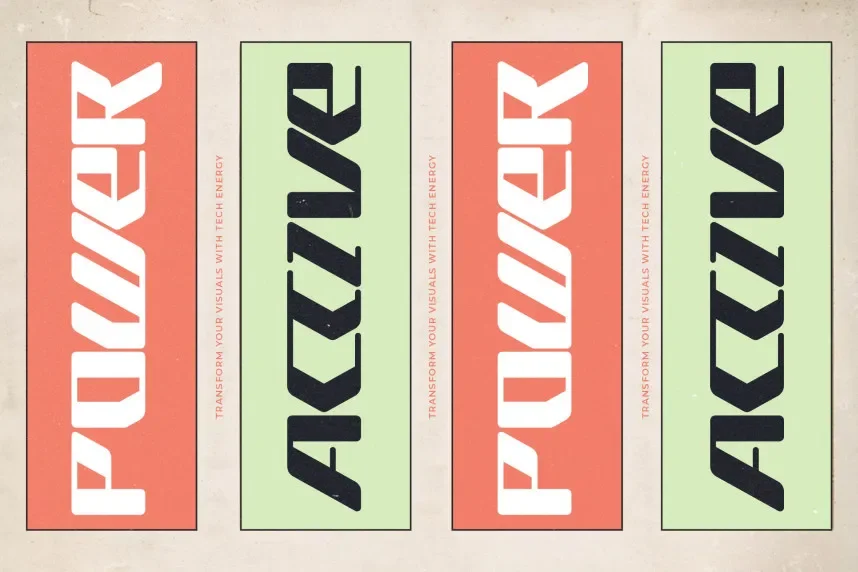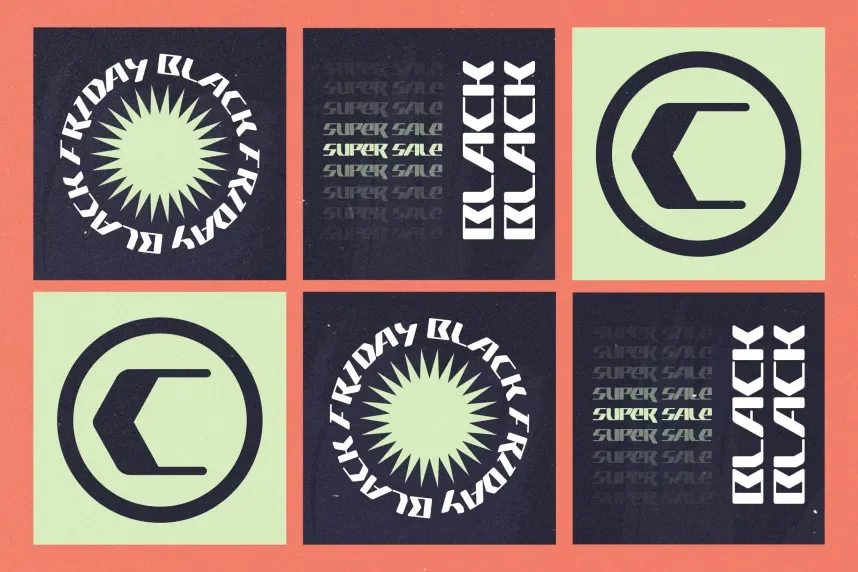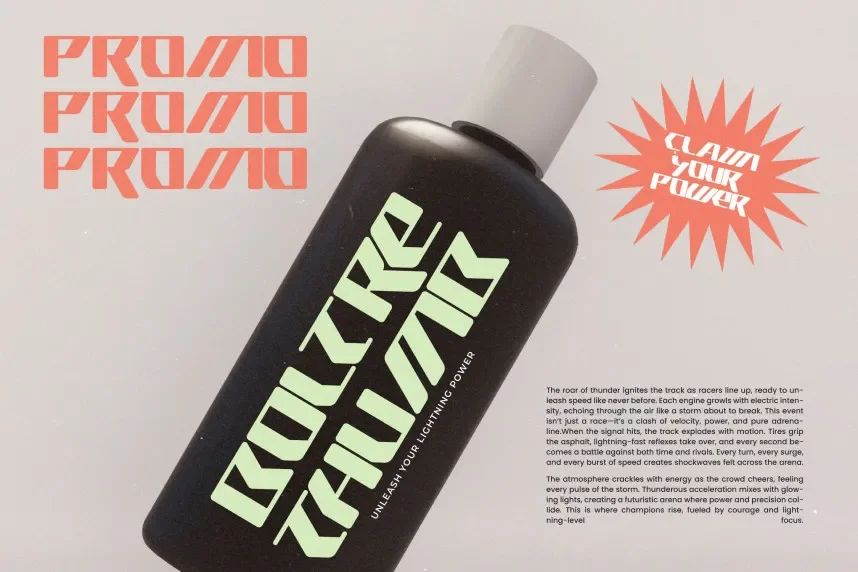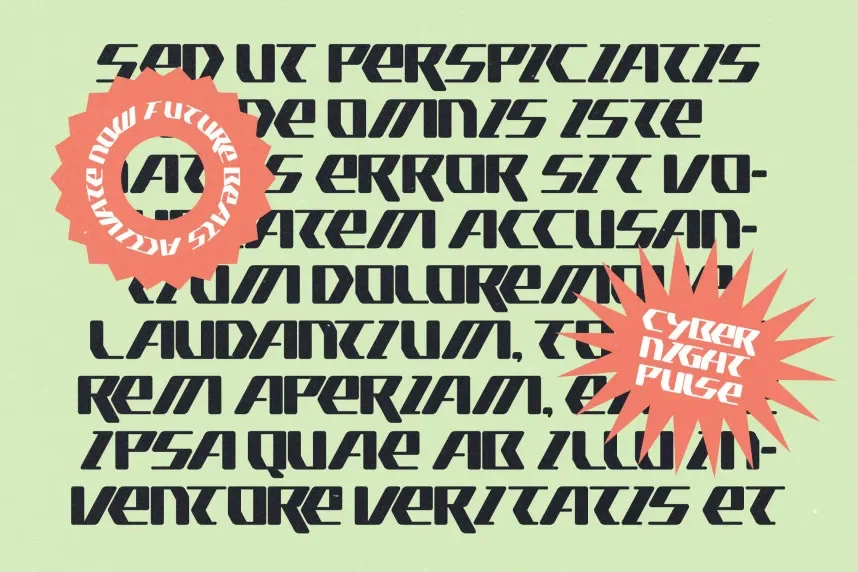
Cyber Motion Font is a futuristic display typeface designed for digital-first projects. Designers often struggle with sci-fi fonts that become unreadable in real-world layouts. Cyber Motion avoids this by keeping letterforms structured and spacing controlled.
This font belongs to the display category with a techno influence. Its letterforms feature straight cuts, geometric shapes, and consistent stroke weight. The font maintains legibility while expressing a digital aesthetic.
Cyber Motion is commonly used for technology branding, gaming interfaces, event posters, motion graphics, and UI headings. It pairs well with neutral sans-serif fonts for body text to keep layouts readable.